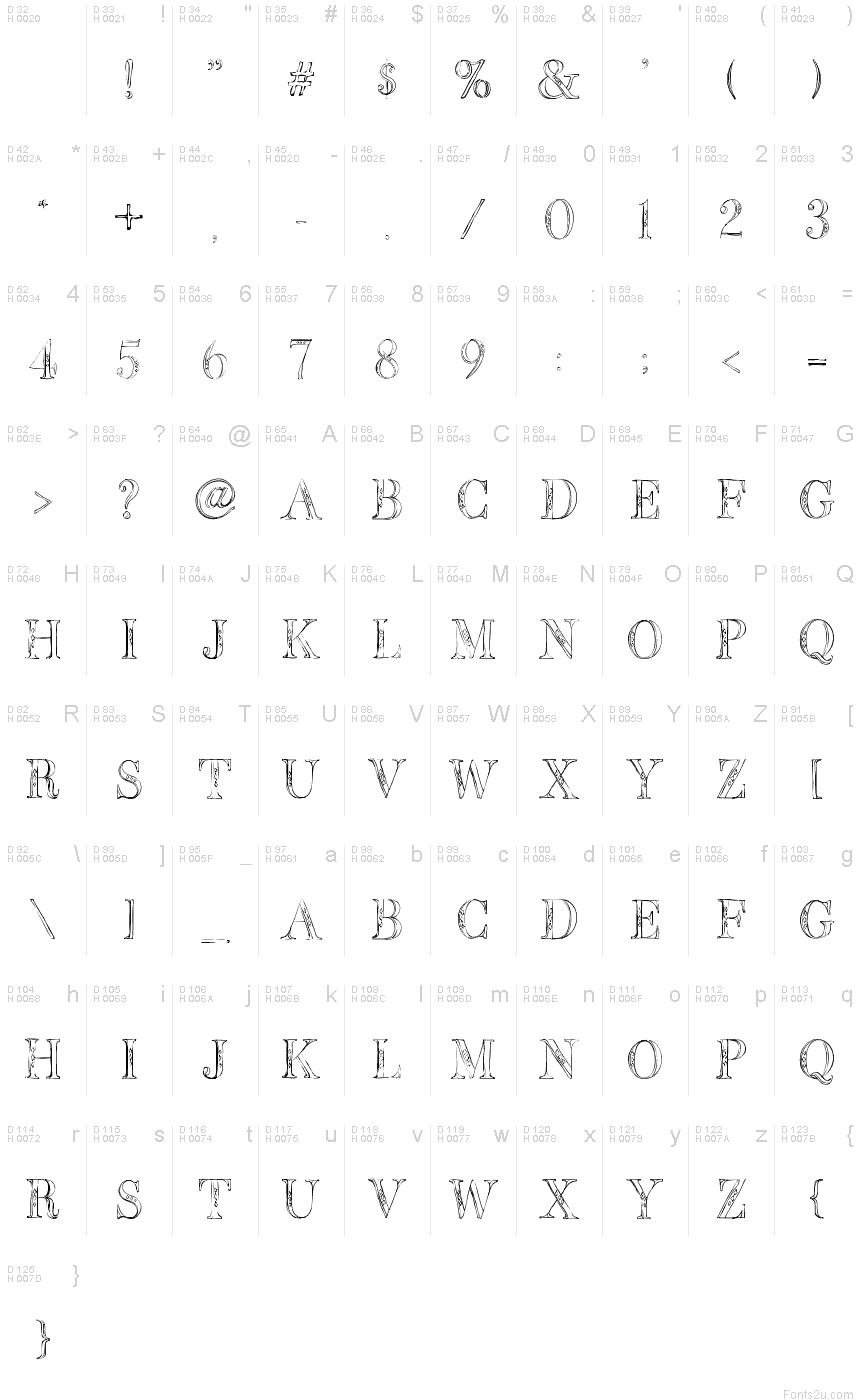
BB Petie Boy is a free Victorian-inspired decorative caps font, shaped by tall serif letters and slender, high-contrast strokes. Diamond-like cutwork runs down selected verticals, while doubled curves and fine inner lines give the lettering an engraved, slightly theatrical air.
Its narrow ornament creates an elegant, old-world accent in book covers and editorial mastheads without competing with surrounding imagery. Use this free font for boutique branding, perfume packaging, invitation titles, or period-flavored theater posters, where the etched detailing can echo borders, filigree, and other crafted graphic elements.